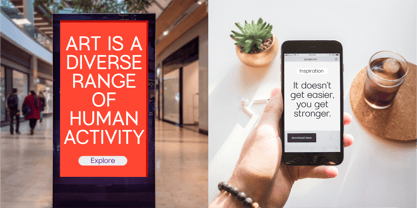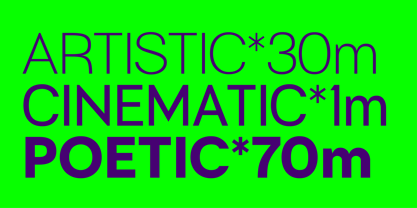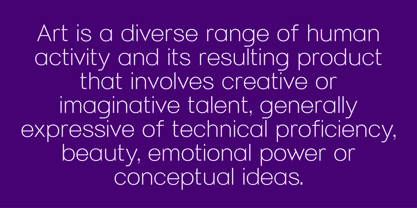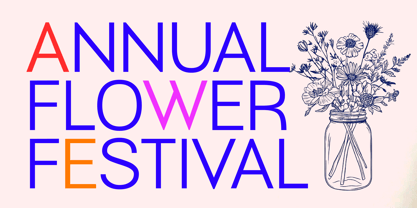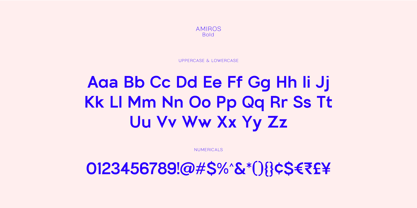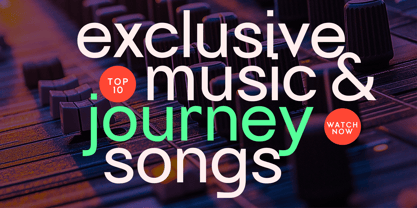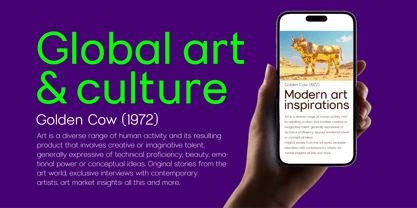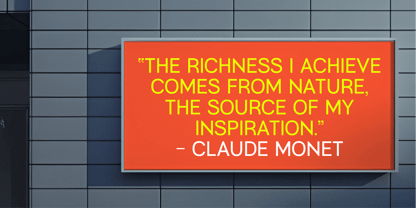
Amiros Variable
by Likeminds Studio
The Amiros Variable Font Family was designed by Abhya Chawla and published by Likeminds Studio. Amiros Variable contains 1 styles. More about this family
Meet Amiros. A beautiful, young, artistic and an expressive san serif variable font, is a blend of modern curves with traditional clean contours. It is meticulously crafted with extreme precision giving it the neat balance, shaping it as a contemporary piece of art in itself. Amiros type is the untold story of a character which unfolds with every single usage, making a deep bond between an artist and the artwork.
Exuberating elegance it works beautifully with each scale reflecting its own visual influence. Be it a headline for bold impact or sharp chiselled small copy, it works seamlessly for all purpose branding design, digital apps, UX, UI, and advertising campaigns.